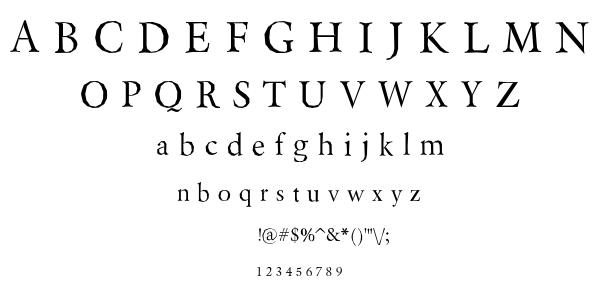
Berylium
Berylium Font
Berylium is a 4 styles “Garalde” font family with an angular, antique texture. Don’t forget to read the files inside the zip for details. Updated in 2012.